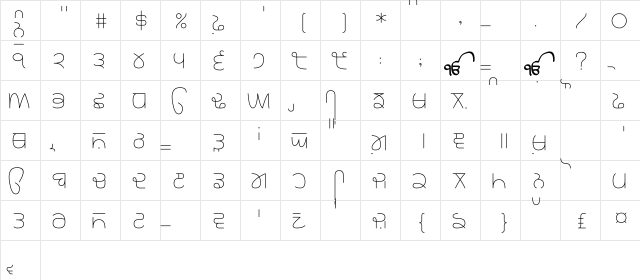
Rupe 1 Thin Short Font Preview
Rupe 1 Thin Short
Rupe 1 Thin Short Font Details
| Style | Short |
| Foundry | Paul Alan Grosse |
| Designer | Paul Alan Grosse |
Design Context for Rupe 1 Thin Typeface
Rupe 1 Thin is a composed and adaptable typeface that performs quietly and consistently across a wide range of design contexts. The delicate stroke weight brings airiness and refinement to layouts.